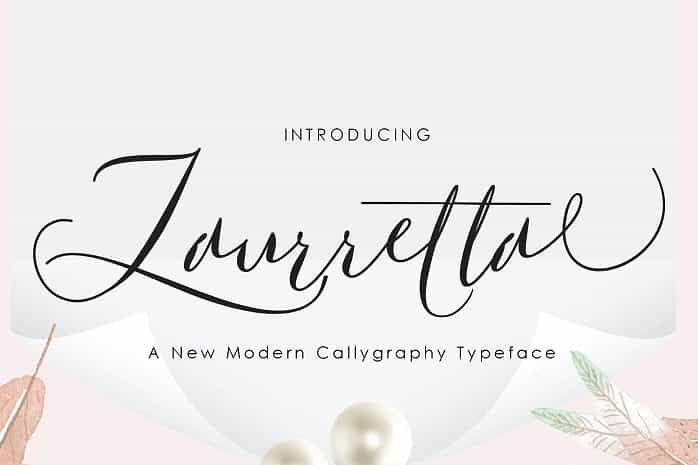
Introducing Laurretta Font. Laurretta Modern Calligraphy. This font was created by handwriting, and it has modern and unique forms of calligraphy, the writing style is very natural. It is perfect for logos, t-shirts, product packages, headers, posters , greeting cards and many other applications.